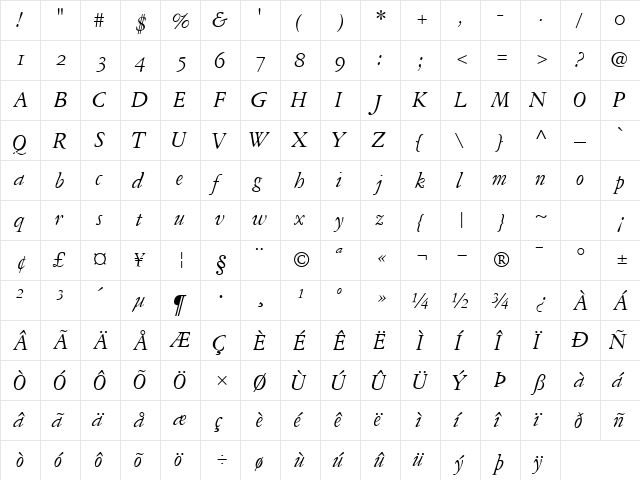
GaramondRepriseOSSSK Italic Font Preview
GaramondRepriseOSSSK Italic
Design Context for GaramondRepriseOSSSK Typeface
GaramondRepriseOSSSK takes a measured approach to typography — its balanced proportions and neutral character make it a reliable workhorse for both digital and print work. Its italic angle brings a sense of urgency and motion to the letterforms.